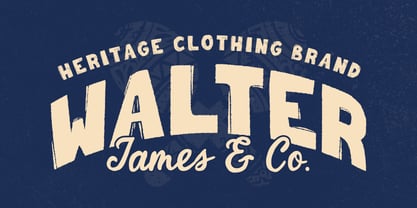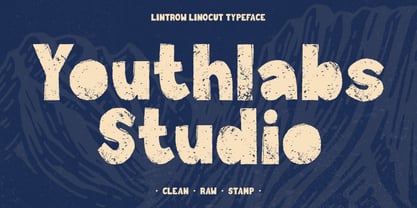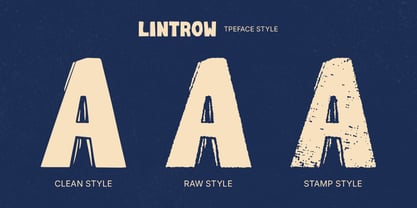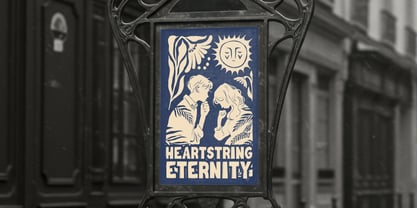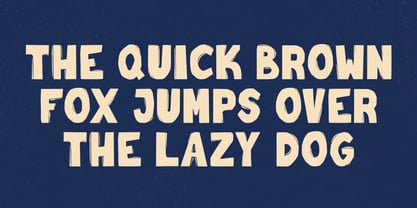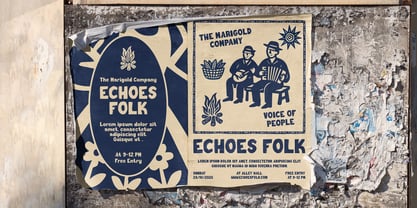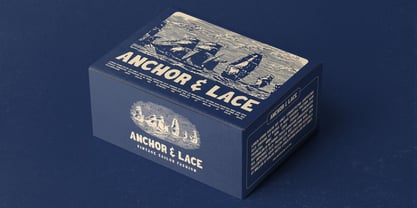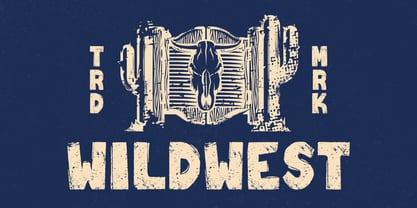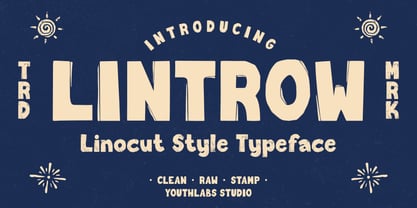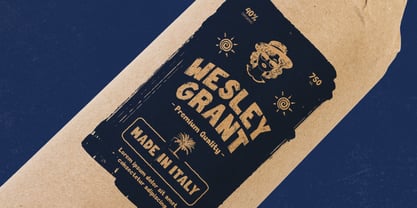
Lintrow
by Youthlabs
The Lintrow Font Family was designed by Fathi Al Ghazi and published by Youthlabs. Lintrow contains 3 styles and family package options. More about this family
Lintrow is a bold display typeface inspired by traditional lino-cut printmaking. With its raw edges, stamped textures, and handcrafted charm, this font captures an artisanal, vintage aesthetic perfect for posters, packaging, and branding projects that need a touch of authenticity. Its clean yet rugged style makes it versatile for both modern and retro themes, adding personality and character to every design.